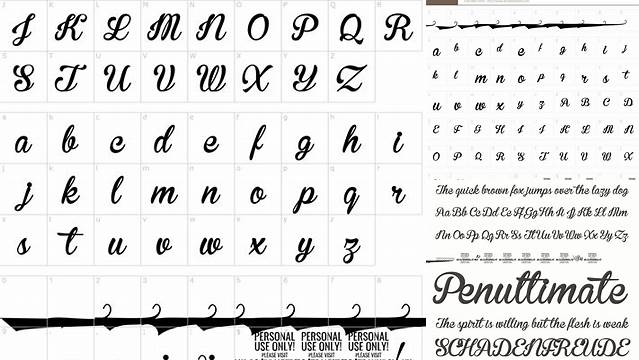
Brannboll Connect Swash: Free Font Download Guide
Hey guys! Are you looking for a cool, unique font to spice up your design projects? Well, look no further! We're diving deep into the world of Brannboll Connect Swash, a font that’s been making waves in the design community. In this guide, we'll explore everything from what makes this font so special to how you can snag it for free and put it to awesome use. So, buckle up and get ready to elevate your typography game!
What is Brannboll Connect Swash?
Before we get into the nitty-gritty of downloading and using it, let's understand what Brannboll Connect Swash actually is. This font is a display typeface known for its playful, connecting swashes and rounded letterforms. It's the kind of font that adds a touch of whimsy and personality to any project. Think logos, posters, social media graphics – you name it! Brannboll Connect Swash is designed to be eye-catching and memorable, making it a fantastic choice for projects where you want to stand out. Its unique character lends itself particularly well to branding and creative designs. With its distinctive style, Brannboll Connect Swash brings a dash of fun to any textual content, ensuring it captures attention and leaves a lasting impression. It's perfect for designers aiming to create visual appeal and engagement, setting their work apart with a touch of playful elegance. The rounded shapes and connecting swashes work together seamlessly to create a harmonious and cohesive look, making Brannboll Connect Swash a versatile asset in any designer's toolkit.
Brannboll Connect Swash Font: An Overview
Brannboll Connect Swash is not just another font; it's a design asset that can transform ordinary text into something extraordinary. Its defining feature is the seamless connection between letters through elegant swashes, creating a flowing, handwritten effect. This makes it ideal for projects where you want to convey a sense of warmth, authenticity, and creativity. The font's rounded terminals and soft curves contribute to its friendly and approachable vibe. Beyond its aesthetic appeal, Brannboll Connect Swash offers excellent readability, ensuring your message is clear and easily understood. Whether you're designing a logo, crafting a social media post, or creating a poster, this font will help you make a statement. Its versatility makes it suitable for a wide range of applications, allowing you to express your creative vision effectively. Brannboll Connect Swash is more than just a font; it's a tool for enhancing your designs and making a lasting impression. With its unique blend of style and functionality, it's the perfect choice for projects that demand attention and personality.
Key Features of Brannboll Connect Swash
What makes Brannboll Connect Swash stand out from the crowd? Several key features contribute to its unique appeal and versatility. First, the connecting swashes are a signature element, providing a seamless and fluid connection between letters. This adds a touch of elegance and sophistication to the font. Second, the rounded letterforms give it a friendly and approachable feel, making it perfect for projects that aim to convey warmth and authenticity. Third, the font's excellent readability ensures your message is clear and easily understood, even at smaller sizes. Fourth, Brannboll Connect Swash is highly versatile, suitable for a wide range of design applications. Whether you're designing logos, posters, social media graphics, or website headers, this font will help you make a statement. Fifth, its unique character makes it memorable and eye-catching, ensuring your designs stand out from the competition. With Brannboll Connect Swash, you're not just using a font; you're adding a touch of personality and creativity to your projects. Its distinctive features combine to create a typeface that's both visually appealing and highly functional, making it an indispensable tool for designers.
Using Brannboll Connect Swash in Your Designs
Now that you've got your hands on Brannboll Connect Swash, it's time to unleash its potential in your designs. This font is incredibly versatile and can be used in a wide range of projects. Think about using it for logos, branding materials, social media graphics, website headers, posters, and more. Its playful and eye-catching design makes it perfect for projects where you want to stand out. When using Brannboll Connect Swash, consider the overall aesthetic of your design. It pairs well with clean and minimalist designs, adding a touch of personality without overwhelming the composition. Experiment with different font sizes, weights, and colors to find the perfect balance. Use it sparingly to highlight key elements or as a primary font for headlines and titles. Remember to maintain readability by ensuring sufficient contrast between the font and background. With its unique charm and versatility, Brannboll Connect Swash can elevate your designs and help you create a lasting impression. Whether you're a seasoned designer or just starting out, this font is a valuable asset in your creative toolkit.
Design Ideas with Brannboll Connect Swash
Need some inspiration? Here are a few design ideas to get you started with Brannboll Connect Swash. For logos, use it to create a memorable and playful brand identity. Its unique swashes and rounded letterforms will make your logo stand out. For social media graphics, use it to create eye-catching headlines and captions. Its friendly and approachable vibe will help you connect with your audience. For website headers, use it to add a touch of personality and warmth. Its distinctive design will make your website more engaging. For posters, use it to create attention-grabbing titles and slogans. Its bold and playful style will help you get your message across. Experiment with different color combinations and background textures to create visually stunning designs. Use Brannboll Connect Swash to create a cohesive and harmonious look across all your design materials. Let your creativity flow and explore the endless possibilities with this versatile font. With its unique charm and adaptability, Brannboll Connect Swash is a powerful tool for enhancing your designs and making a lasting impression.
Pairing Brannboll Connect Swash with Other Fonts
One of the keys to effective typography is knowing how to pair fonts well. Brannboll Connect Swash is a display font with a lot of personality, so it's important to choose complementary fonts that balance its unique character. Consider pairing it with a clean and simple sans-serif font for body text. This will create a visual hierarchy and ensure readability. Some popular sans-serif options include Open Sans, Lato, and Montserrat. Alternatively, you can pair it with a classic serif font for a more sophisticated look. Times New Roman, Georgia, and Playfair Display are excellent choices. Experiment with different font combinations to find the perfect balance. Use Brannboll Connect Swash sparingly to highlight key elements or as a primary font for headlines and titles, while using a simpler font for body text. Pay attention to the font sizes and weights to create a visually appealing and harmonious design. Remember, the goal is to create a cohesive and balanced composition that effectively communicates your message. With careful font pairing, you can elevate your designs and make a lasting impression.
Alternatives to Brannboll Connect Swash
If Brannboll Connect Swash isn't quite what you're looking for, or if you want to explore other similar fonts, there are plenty of alternatives to choose from. Look for fonts with connecting swashes, rounded letterforms, or a playful and whimsical feel. Some popular options include Amatic SC, Permanent Marker, and Indie Flower. These fonts offer a similar aesthetic and can be used in a variety of design projects. Consider exploring different font foundries and marketplaces to discover unique and interesting typefaces. Pay attention to the font's features, such as its weight, style, and character set, to ensure it meets your specific needs. Experiment with different fonts and font combinations to find the perfect fit for your project. Remember, the goal is to find a font that effectively communicates your message and enhances your design. With so many options available, you're sure to find the perfect alternative to Brannboll Connect Swash that suits your creative vision.